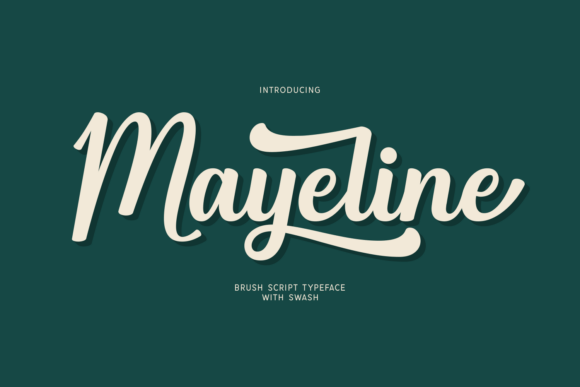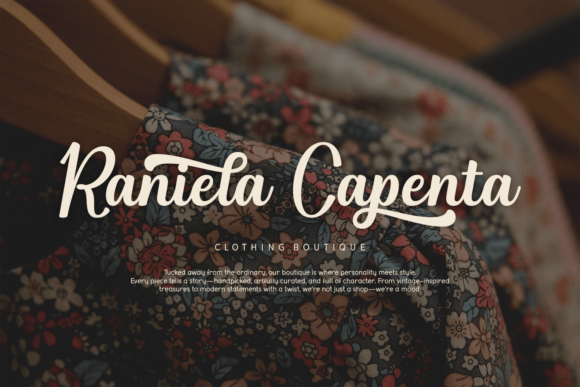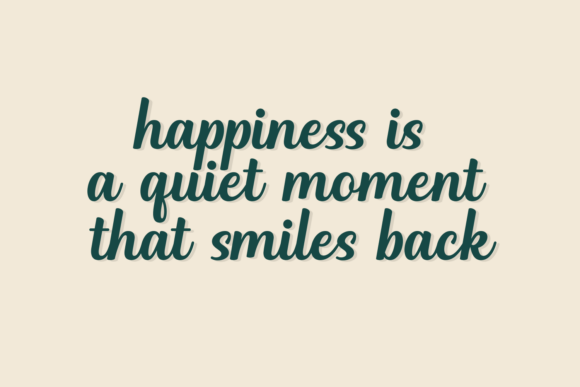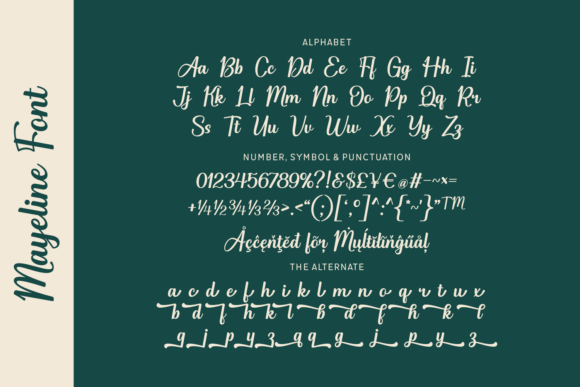
Mayeline Font: Retro Brush Script for Elegant Logo Design & Branding
About the Mayeline Font
We are excited to introduce Mayeline Font, a must-have typeface for any serious designer. Mayeline is a bold and confident brush script typeface, designed to bring vintage flair and modern energy to your work. With its dynamic strokes, smooth swashes, and strong curves, Mayeline is perfect for logos, retro posters, branding projects, and eye-catching headlines. This font combines handcrafted character with stylish appeal, making it a go-to choice for creatives who want impact with elegance.
Mayeline’s bold strokes and swashes make it ideal for headlines, short impactful quotes, and logos requiring a vintage yet modern feel. It excels in branding for products emphasizing quality and craftsmanship, such as artisanal goods or boutique fashion. However, its decorative nature makes it less suitable for body text or UI elements where readability is paramount. Extended use could hinder legibility.
Pairing Mayeline with a clean sans-serif like Montserrat or a geometric sans-serif like Futura provides excellent contrast and balances its playful energy. For a more vintage aesthetic, a serif like Playfair Display or a slightly more subdued script could create a cohesive and sophisticated look. Consider the overall visual message when selecting a companion font.
Its core personality is bold, confident, and slightly retro; best suited for projects needing a touch of vintage charm without sacrificing modern appeal. Brands that value personality and individuality will find Mayeline highly effective.
Mayeline Font Usage Examples
Mayeline Font Example